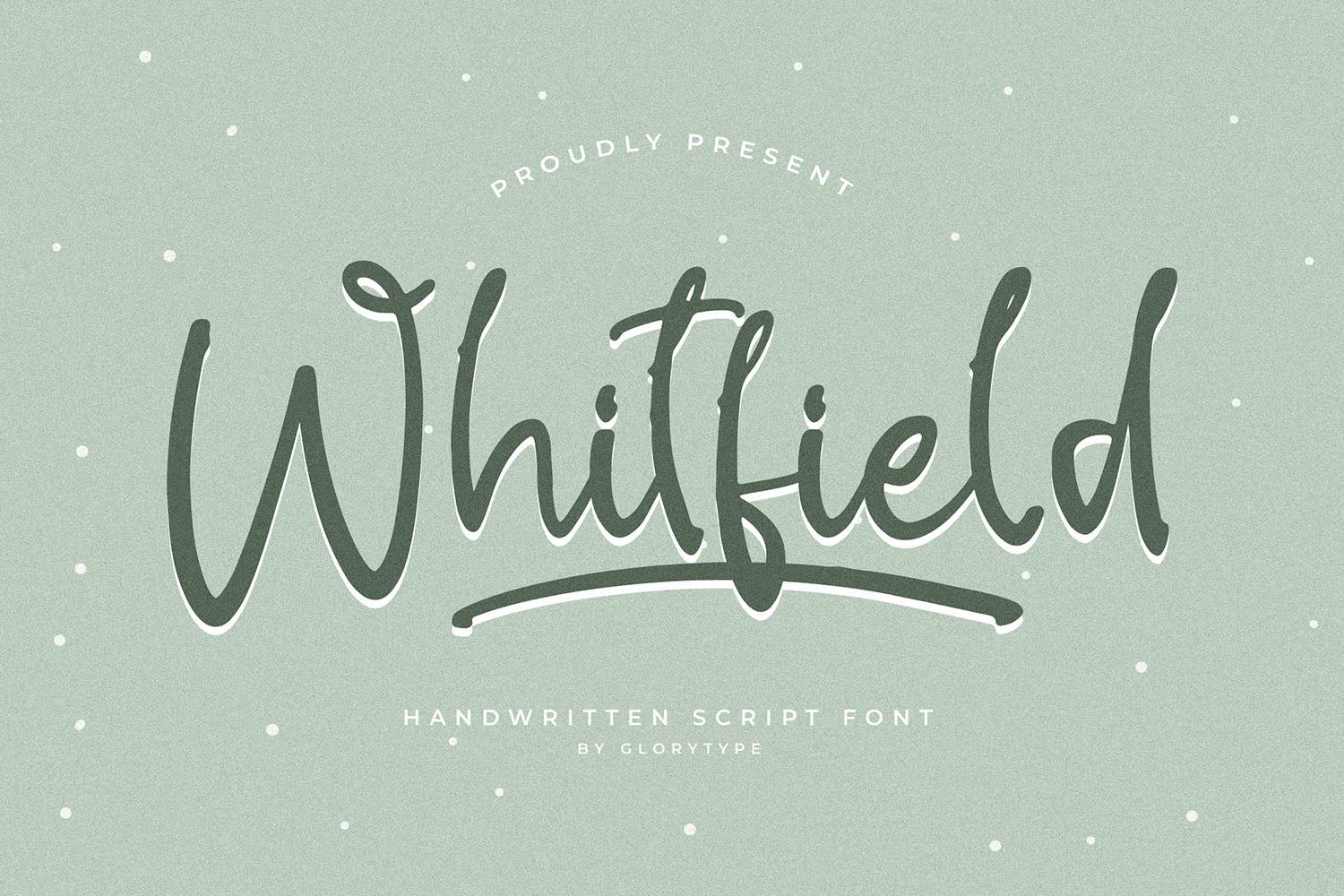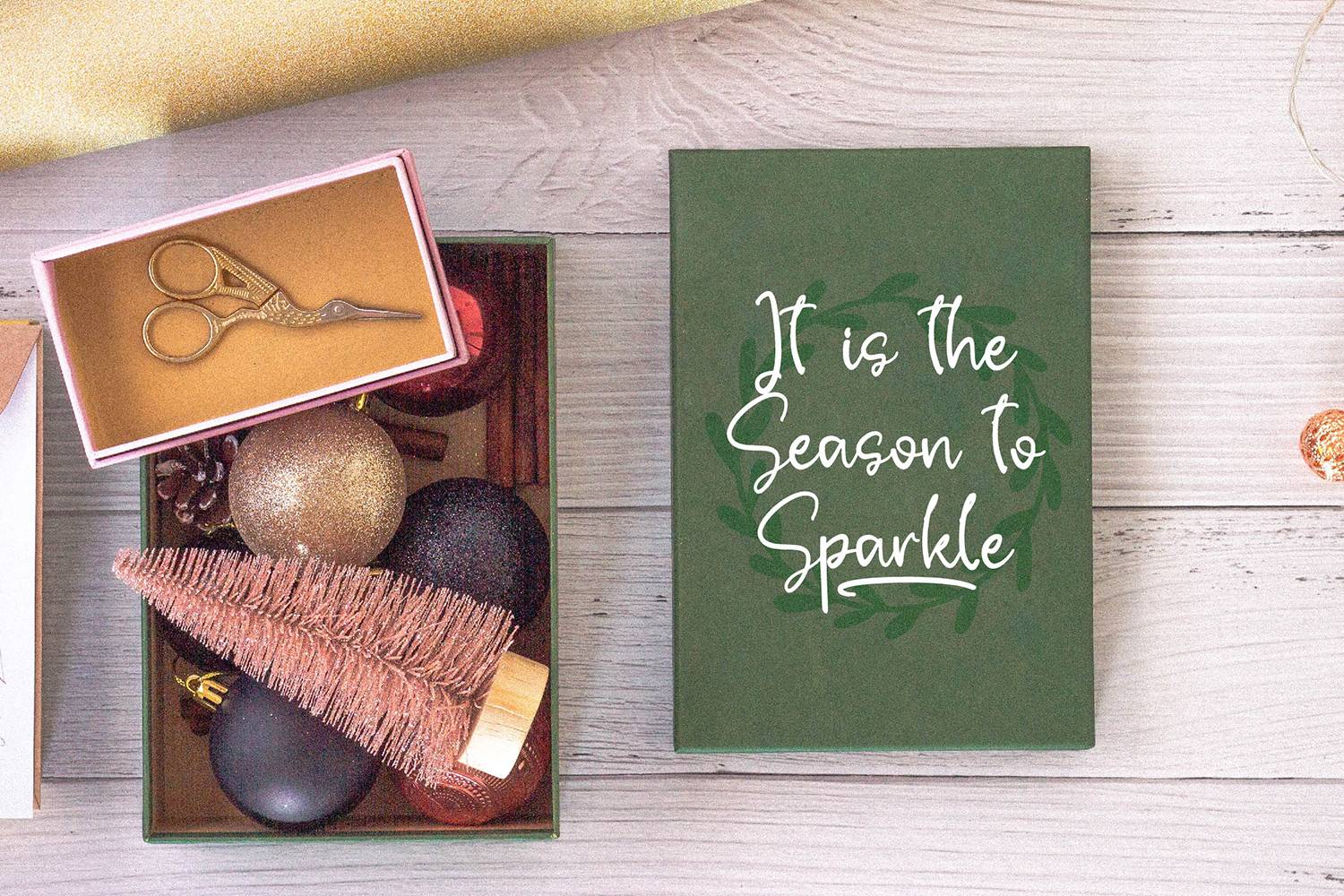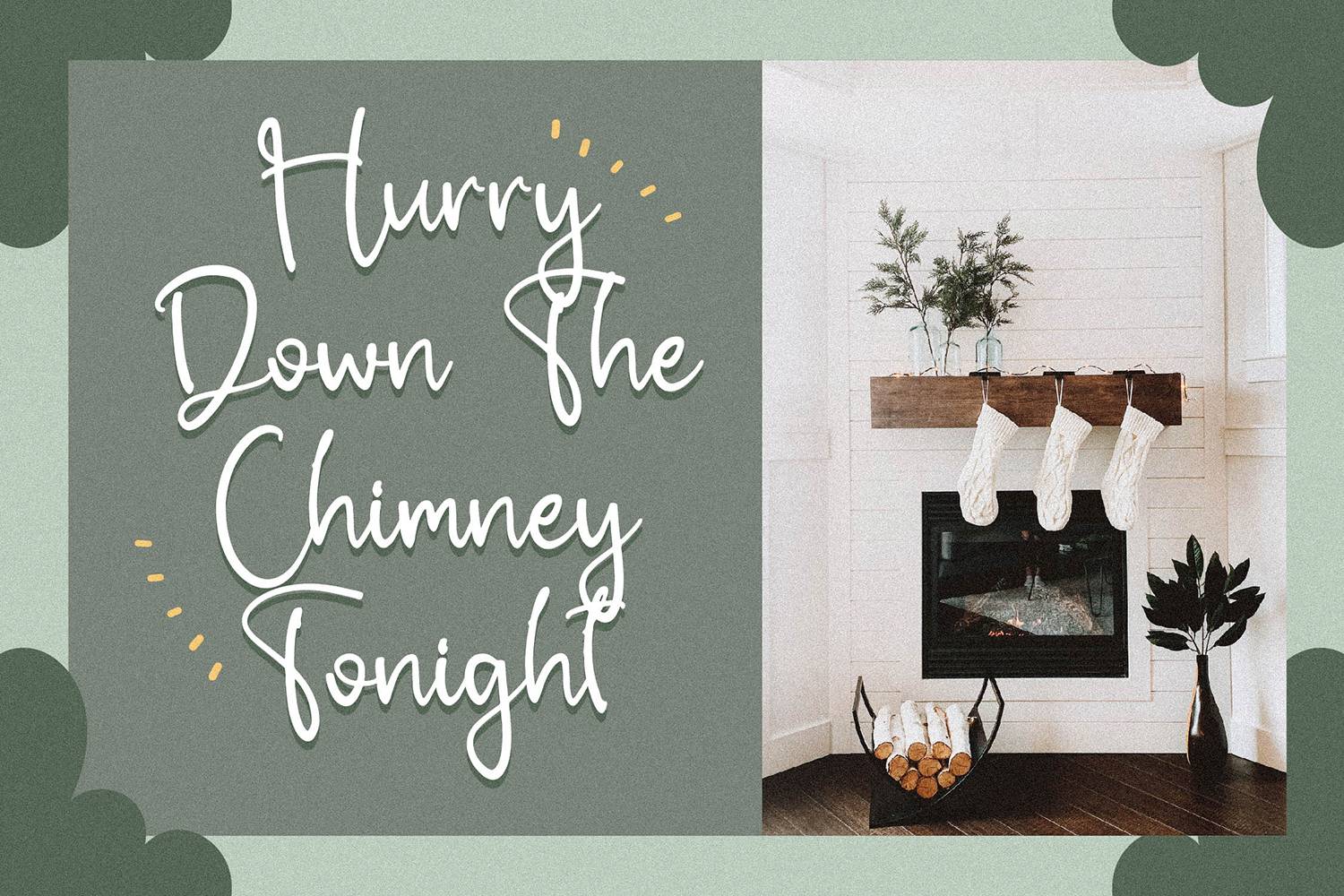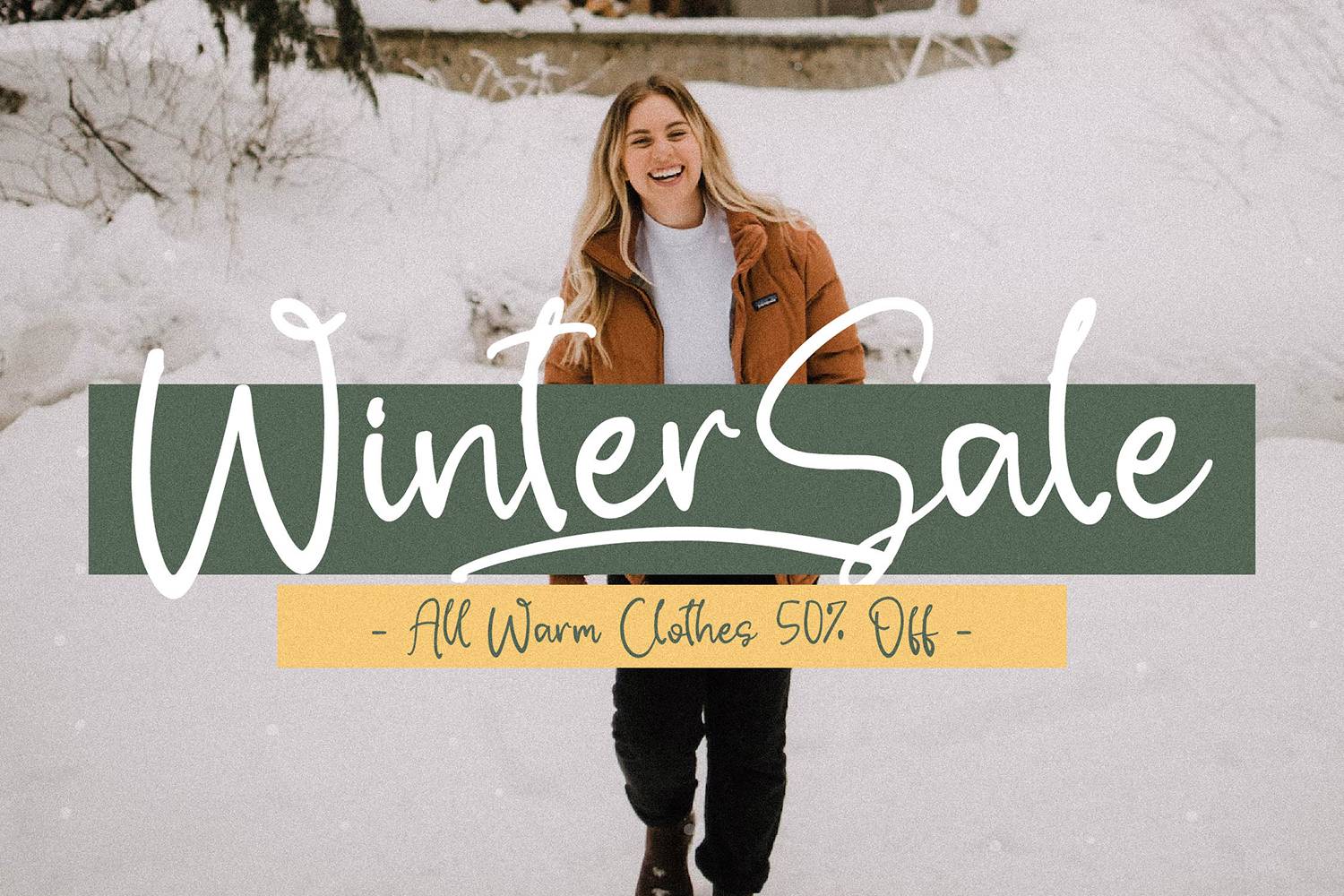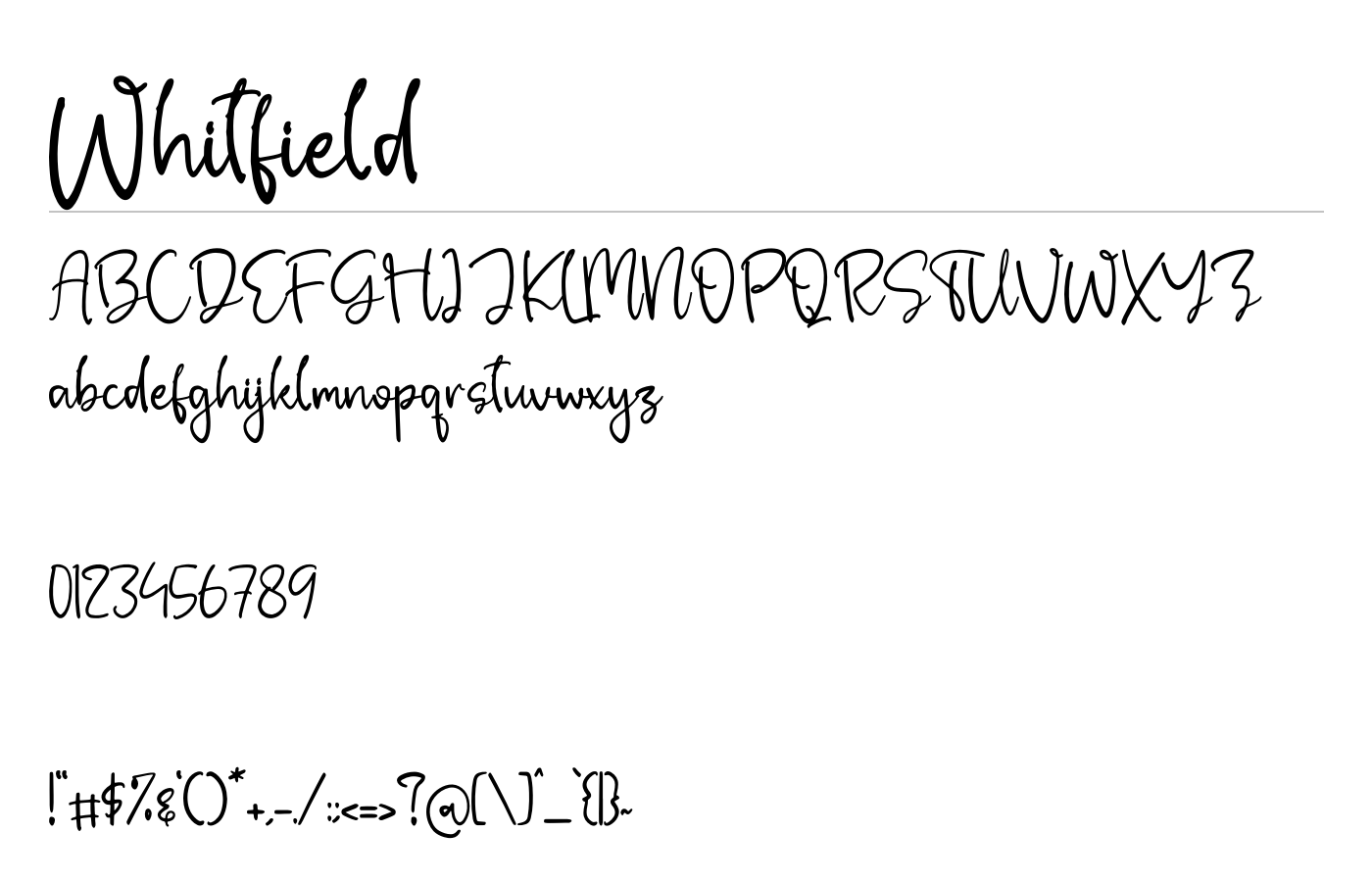
Whitfield is a playful, casual script font with a handwritten feel, featuring tall, slender letterforms and a light, airy stroke. Its loose, flowing style brings warmth and friendliness, making it perfect for creative branding, invitations, and lifestyle projects that seek a personal, approachable touch. This font works especially well in headlines and decorative text where a unique, informal look is desired.
Whitfield Font
About Whitfield Font